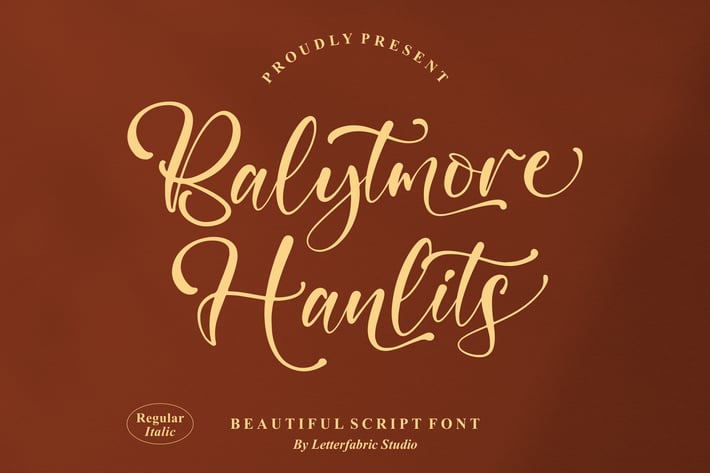
Balytmore Hanlits Script Font
Balyttmore Hanlits Script Font brings elegance and romance to your creative projects. With its graceful calligraphy strokes and beautiful curves, this font is perfect for adding a luxurious and personal touch. Ideal for invitations, branding, logos, posters, and social media content that need a feminine and sophisticated feel.
+ Elegant script with refined calligraphy details
+ Modern and luxurious handwritten style
+ Invitations & greeting cards
+ Branding & logos
+ Posters & flyers
+ Social media content
+ Packaging & product design
Add a touch of timeless elegance to your designs with Balyttmore Hanlits – a beautiful script font that brings luxury and personality to every word.